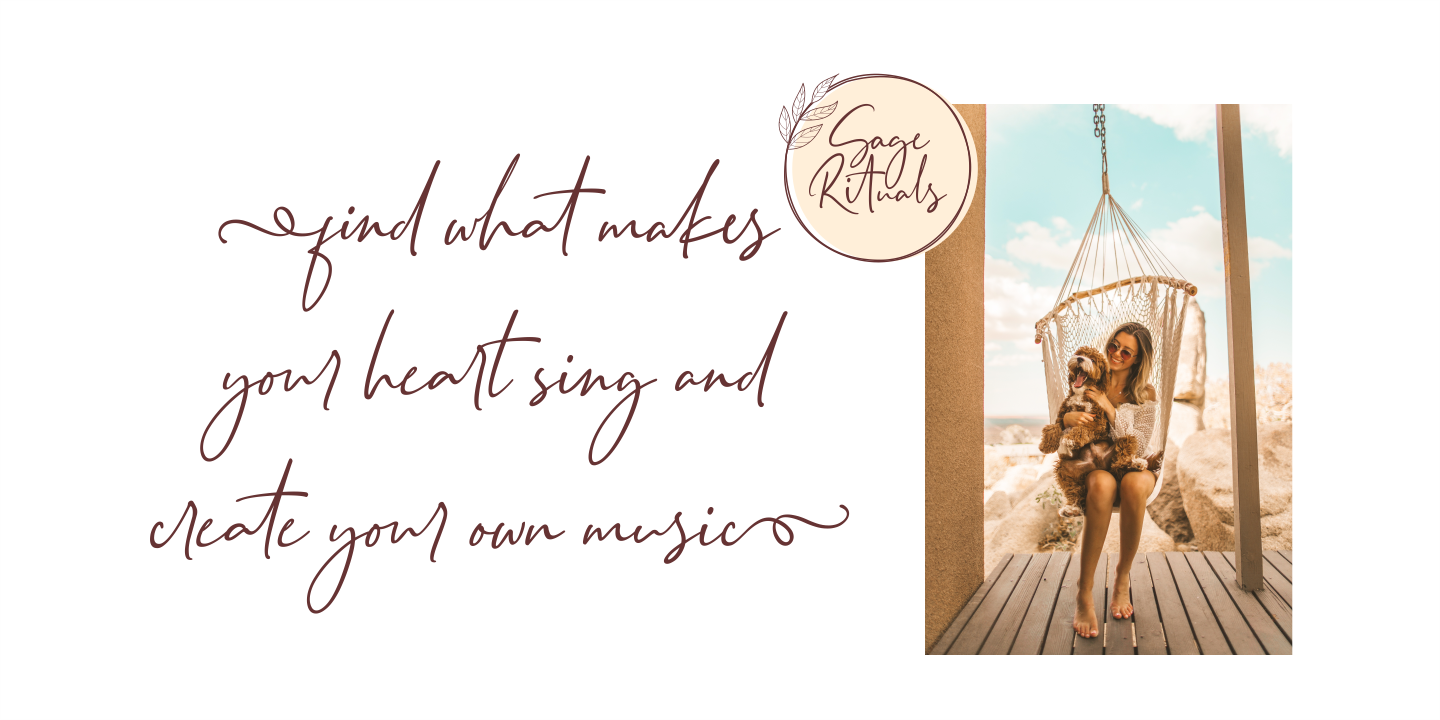
Seville Script Font is perfect for Spanish restaurant branding, flamenco dance academy communications, authentic Andalusian boutique signage, Spanish cultural center materials, Mediterranean wedding invitations, tapas bar menus, Spanish language educational publications, Iberian heritage celebration graphics, traditional Spanish craft promotions, and passionate Spanish lifestyle marketing campaigns.
What makes Seville Script Font so exciting is its extraordinary ability to capture the passionate elegance and romantic spirit of Andalusian culture through gracefully flowing letterforms that seem written with the same passionate intensity that inspires flamenco dancers and blessed with the kind of cultural authenticity that flows through the sun-drenched streets of Seville where art, music, and poetry converge in perfect harmony. This font embodies the essence of Spanish sophistication and Andalusian romance, featuring dramatically scripted characters that appear to dance across the page with the same rhythmic grace that defines Spanish guitar music and the spirited movements of traditional flamenco performances. The passionately crafted letter shapes create an atmosphere of cultural elegance and romantic authenticity, making every word feel like it carries the warmth of Spanish hospitality and the promise of discovering the artistic treasures that make Seville one of the world's most culturally rich and romantically inspiring cities.
The Seville Script Font family includes Light, Regular, Medium, Bold, and Flourished variations, along with Spanish cultural symbols and flamenco-inspired decorative elements. Each style maintains the font's distinctive passionate character while offering versatility for different Spanish heritage applications, from gentle poetry text to dramatic celebration headlines that announce the arrival of authentic Spanish festivals and cultural celebrations.
This enchanting typeface brings authentic Spanish cultural aesthetics to contemporary design projects. The Seville Script Font Free Download provides designers with an invaluable resource for creating memorable brand identities that communicate passion, cultural elegance, and Spanish authenticity. Whether you're developing Spanish restaurant branding, designing flamenco performance materials, or creating Andalusian cultural communications, this font delivers unmatched romantic appeal and Spanish credibility.
The masterfully crafted letterforms in Seville Script Font feature flowing curves and passionate flourishes that mirror the graceful movements of flamenco dancers and the expressive artistry of Spanish calligraphy that has graced important documents and artistic works for centuries. Each character has been designed to maintain excellent readability while expressing the cultural pride and passionate spirit that define authentic Spanish artistic expression. The font's distinctive personality makes it ideal for applications requiring genuine Spanish authority and Andalusian cultural appeal.
Spanish cultural and hospitality professionals appreciate how Seville Script Font effortlessly communicates passion, cultural authenticity, and Spanish excellence while appealing to international audiences seeking genuine Spanish experiences that honor both the artistic traditions and contemporary achievements of Spanish civilization. The comprehensive character set includes Spanish symbols, flamenco decorations, cultural ornaments, and extensive Spanish language support, ensuring authentic compatibility while preserving its distinctive Seville identity. This makes it an invaluable resource for Spanish restaurants, cultural organizations, flamenco academies, and any establishment seeking typography that embodies the fundamental Spanish values of pasión, cultura, and hospitalidad while celebrating the vibrant heritage, artistic excellence, and cultural contributions that Spanish civilization brings to the world through centuries of creating music, art, literature, and architectural masterpieces that continue to inspire people everywhere who appreciate the beautiful combination of passion and elegance that defines the Spanish spirit and the timeless appeal of cities like Seville where every street corner tells stories of romance, artistry, and the kind of cultural richness that makes life itself feel like a celebration of beauty, love, and human creativity at its most passionate and inspiring.